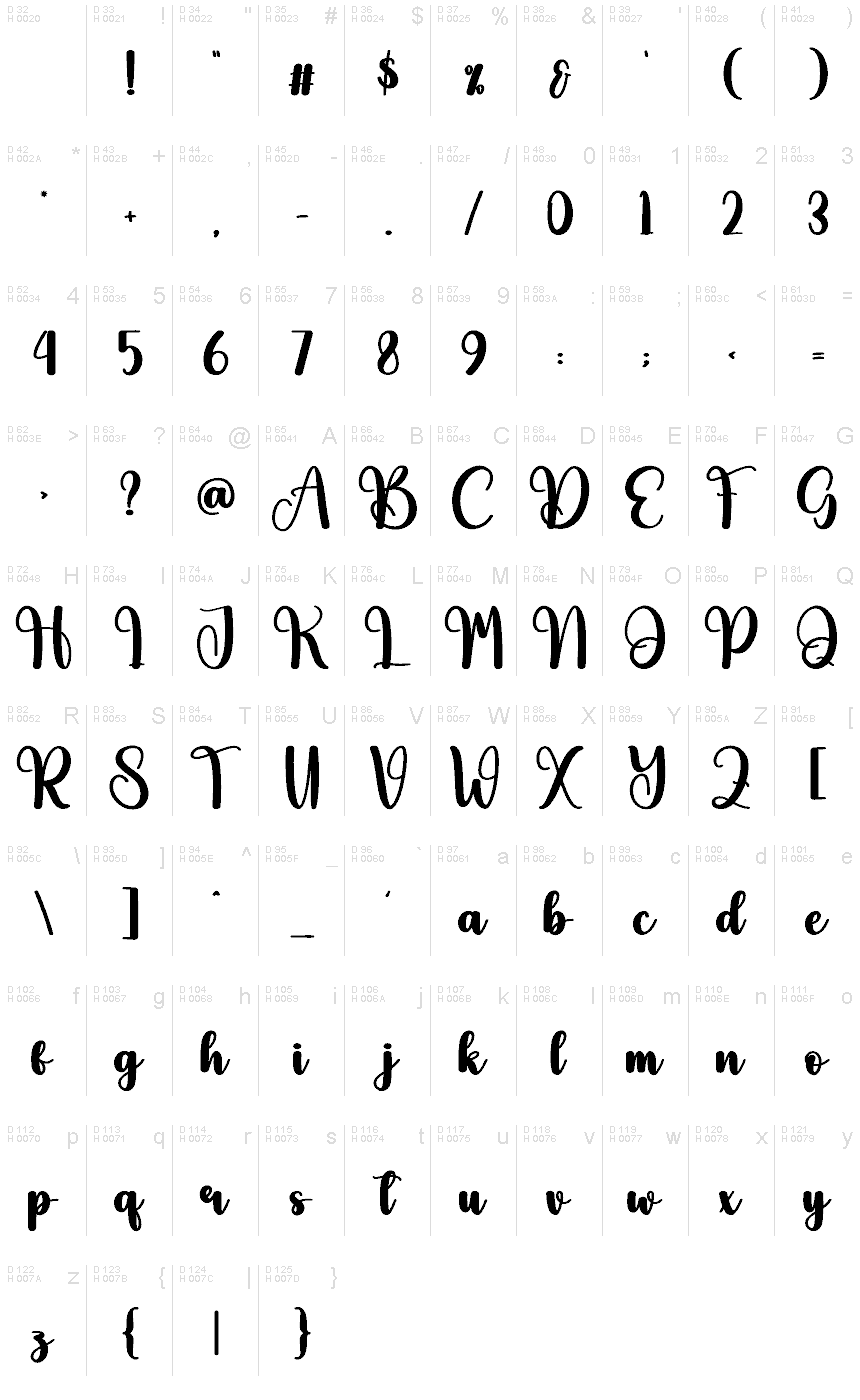
Sunshine Journey
Sunshine Journey font by Scratchones is a free handwritten font that flows expressively like brush strokes. This artful casual script has authentic swirl effect that make it inviting for body texts or word/line emphasis. Its letters are properly curated to connect seamlessly and extend writings in its elegant style.
The versatility of the font makes it easy to both read and decorate menus, product packages, books, brands, posters, quotes. It also works for greeting cards, postcards, notebook covers or used on websites.